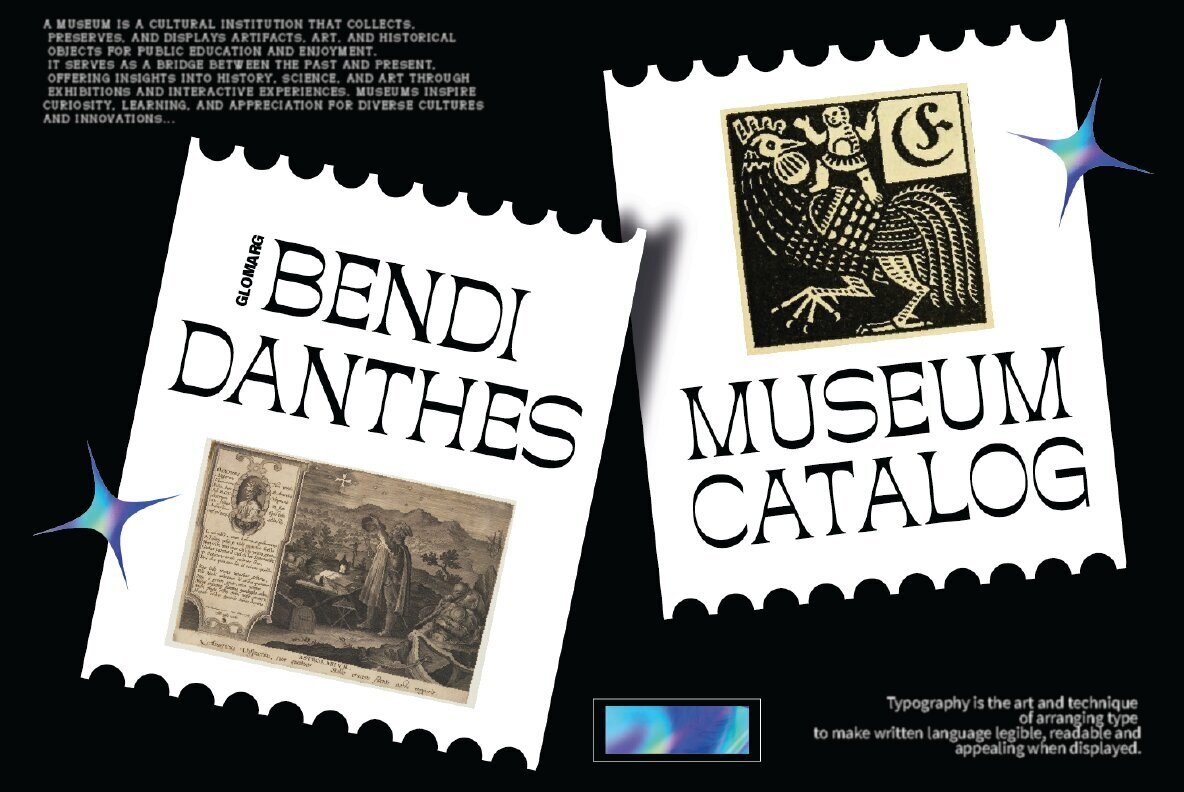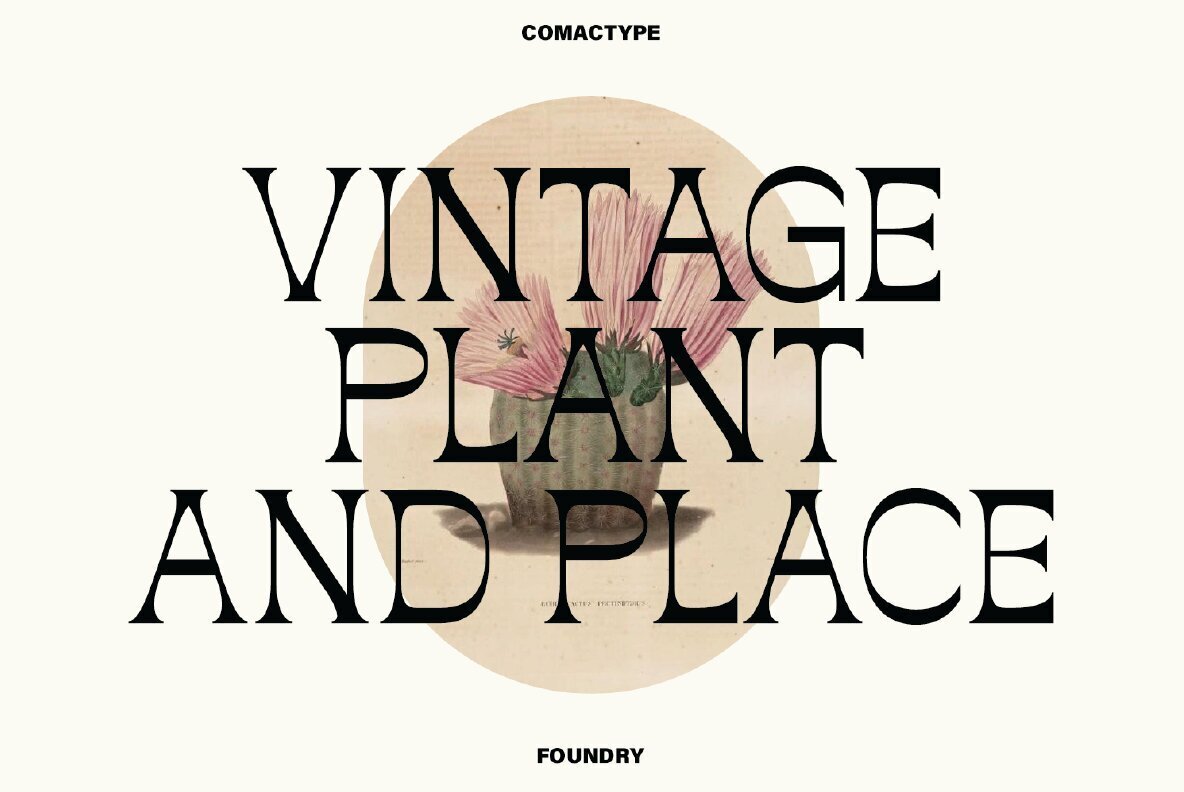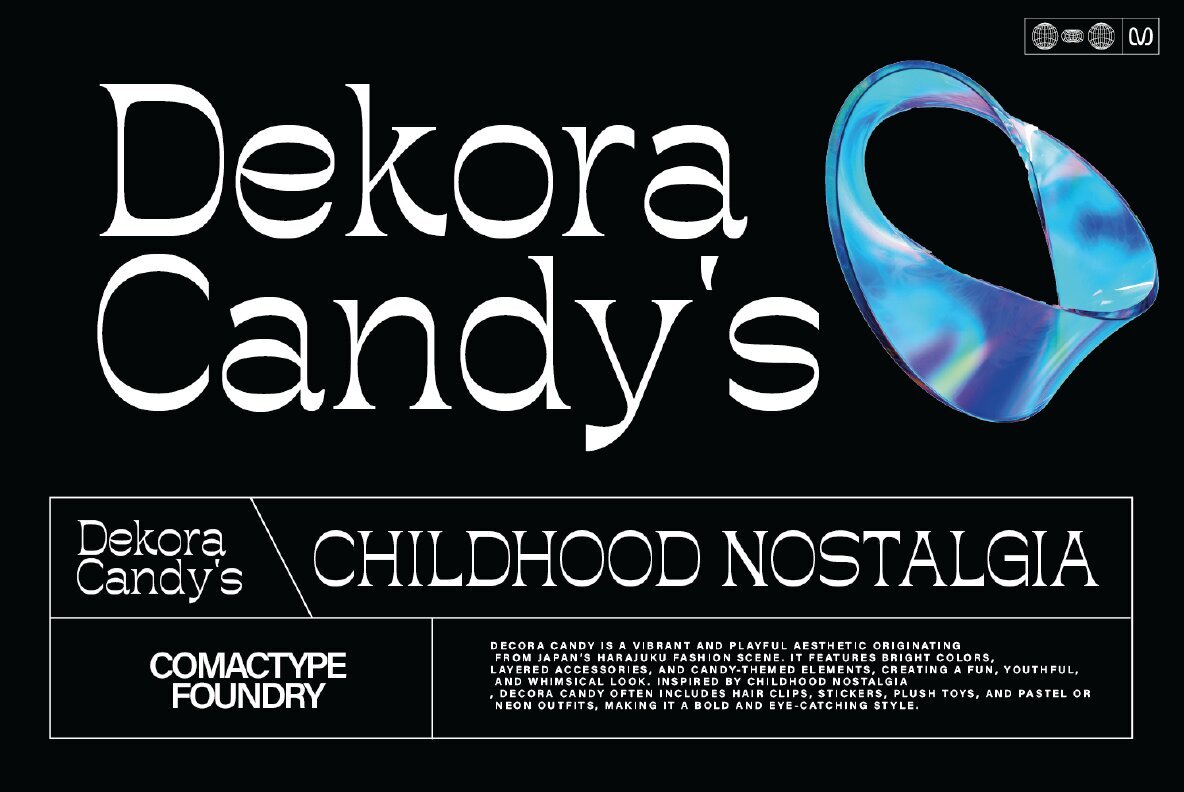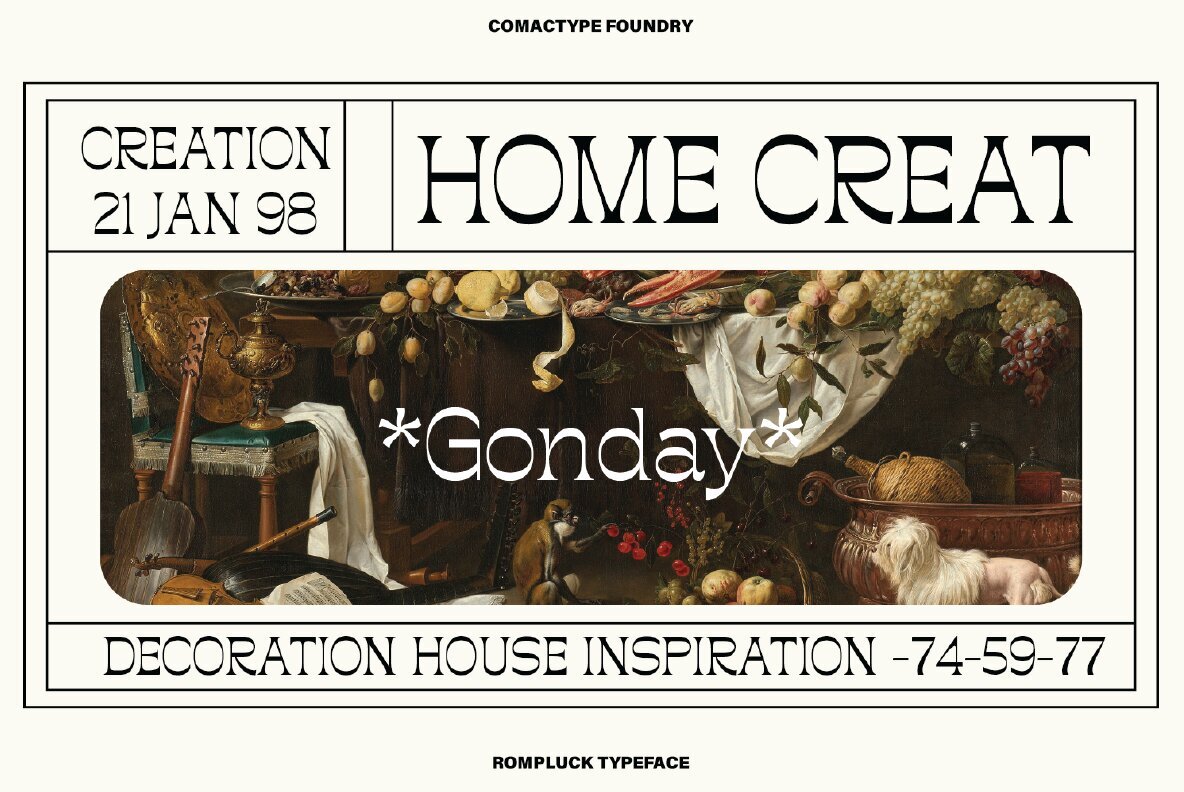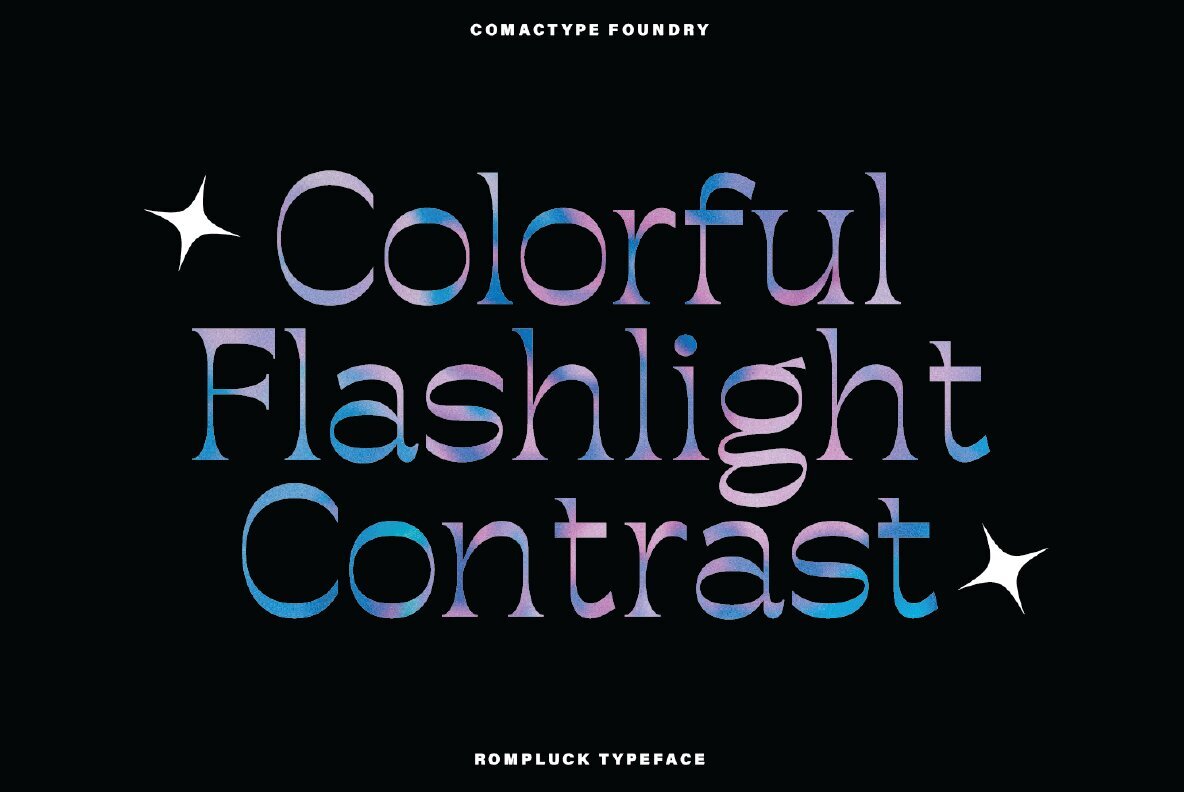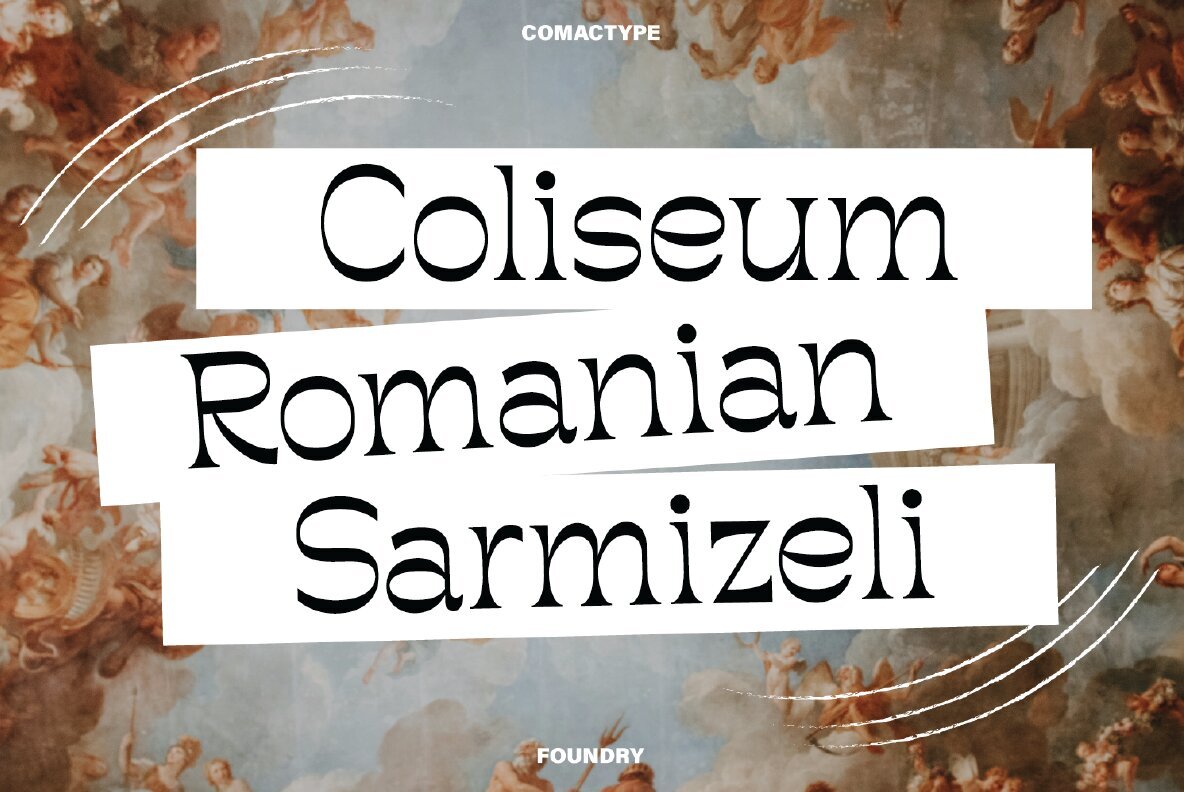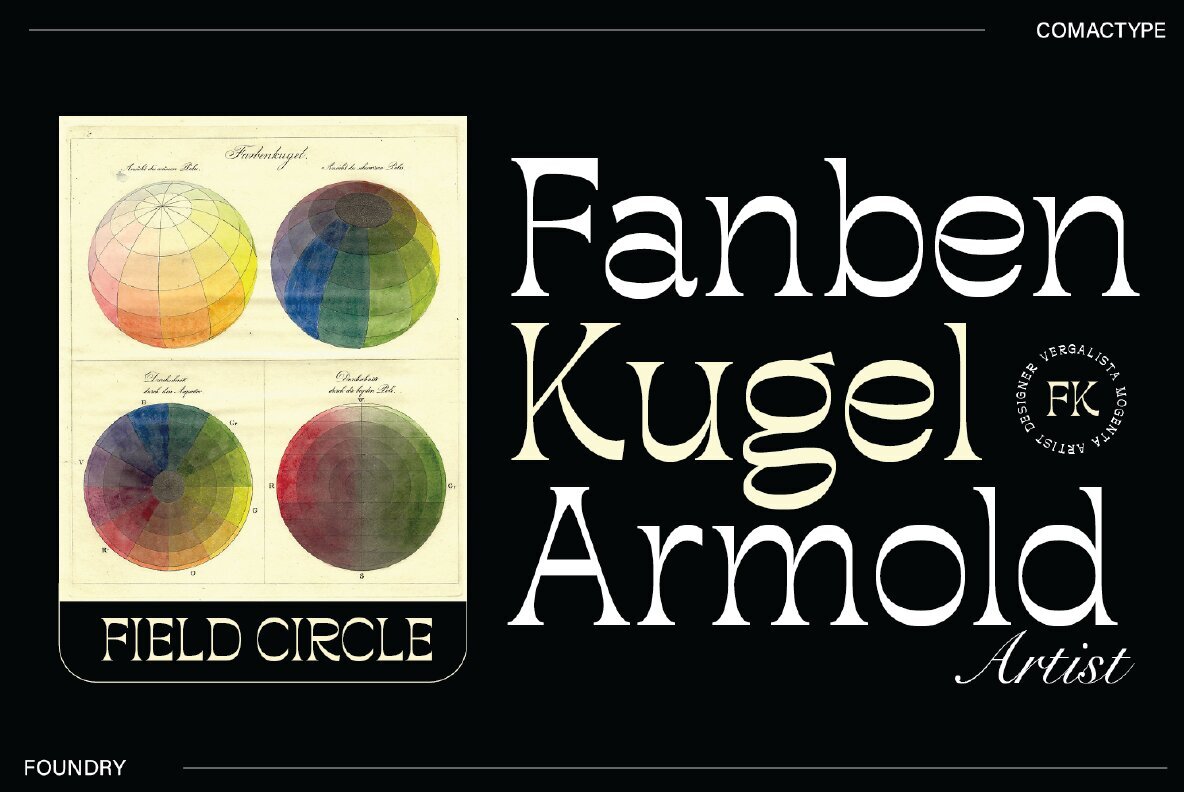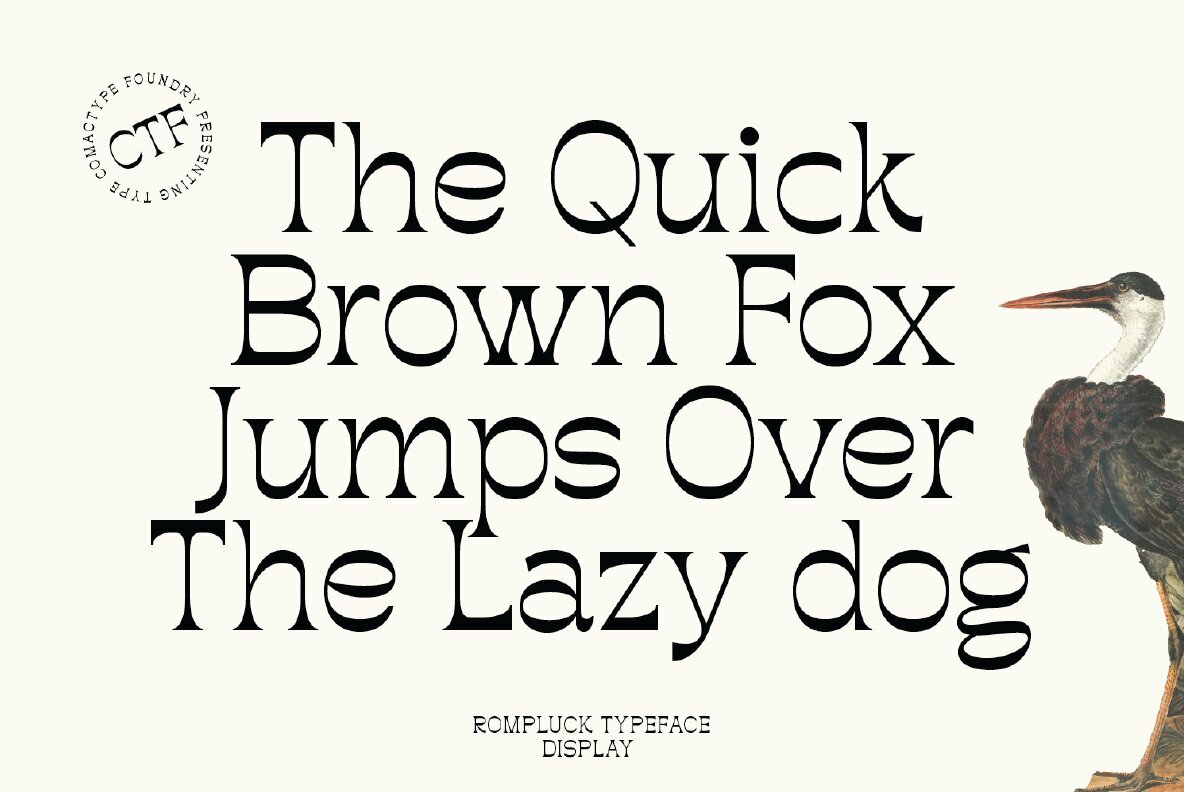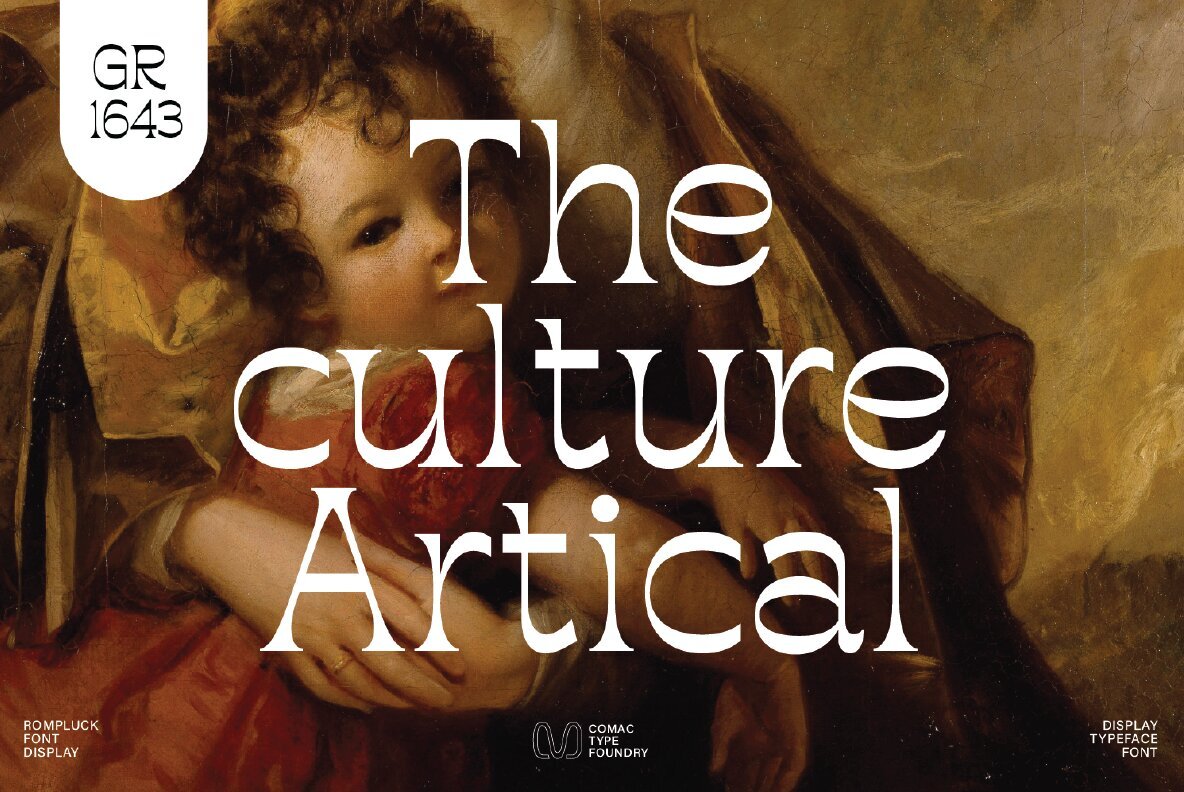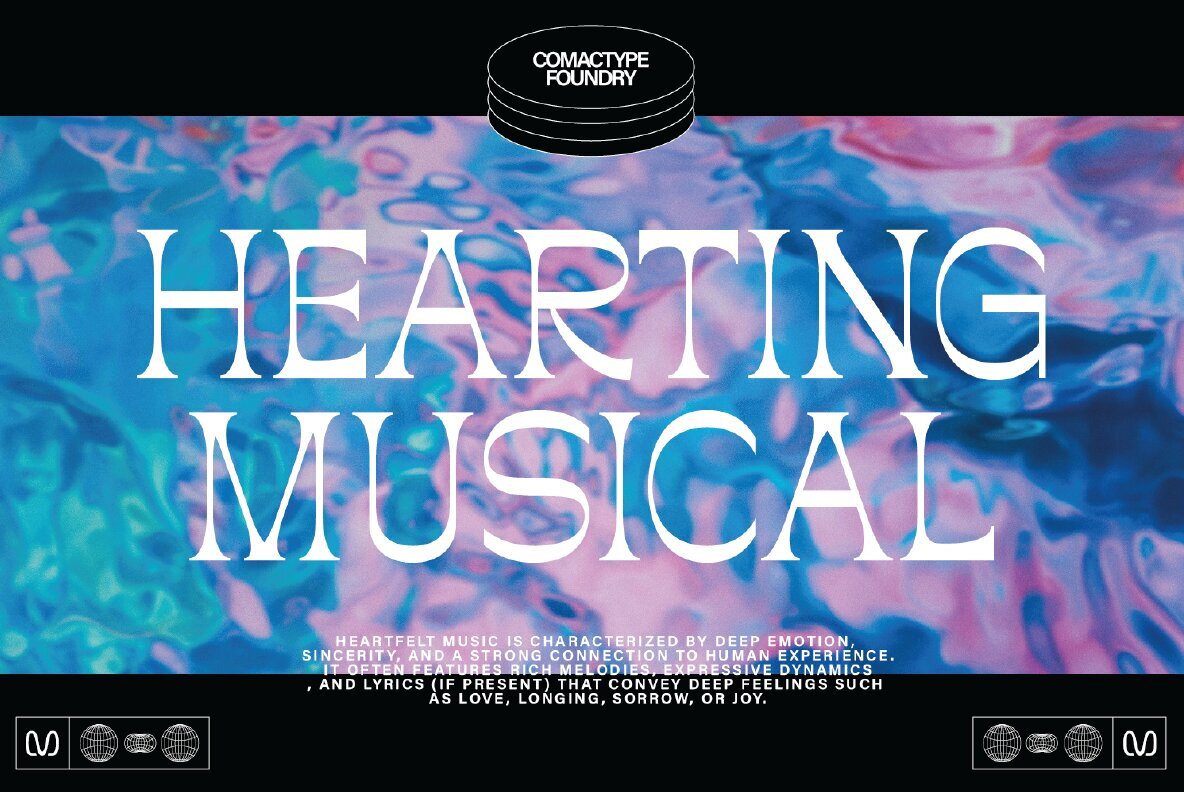
Rompluck Font
Rompluck Regular
Rumpluck is a display typeface with an elegant and unique serif style. This font blends classic aesthetics with a modern touch through its high contrast between thick and thin strokes, creating a luxurious and dramatic appearance. Its letterforms feature distinctive characteristics, such as sharp terminals and artistic curves, especially in letters like R, P, L, and K, giving it a dynamic and bold impression. With well-balanced proportions and refined details, Rumpluck is perfect for branding, editorial design, posters, logos, and product packaging that seek to stand out and exude exclusivity. The beauty of this font makes it an ideal choice for designers looking for a classic, luxurious, and contemporary typographic style.